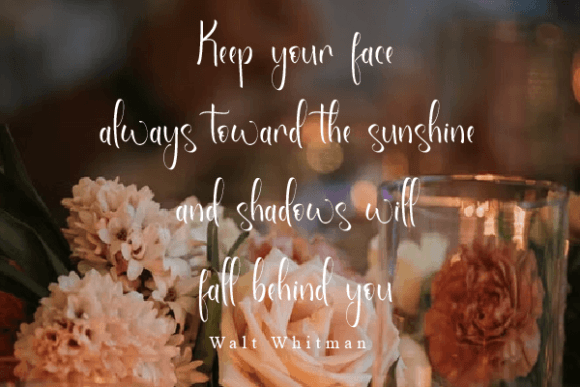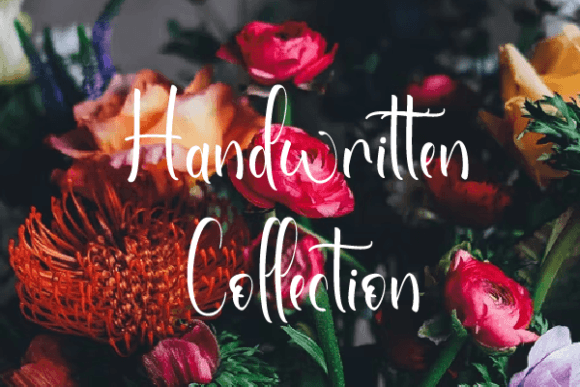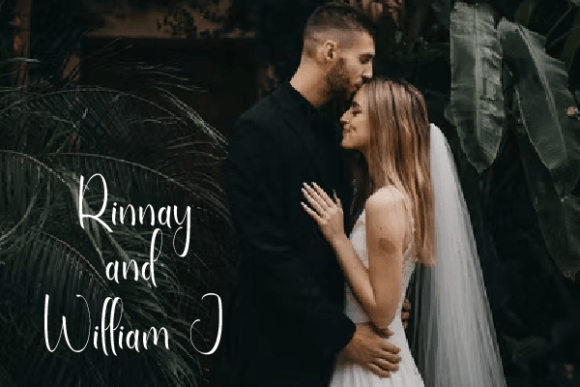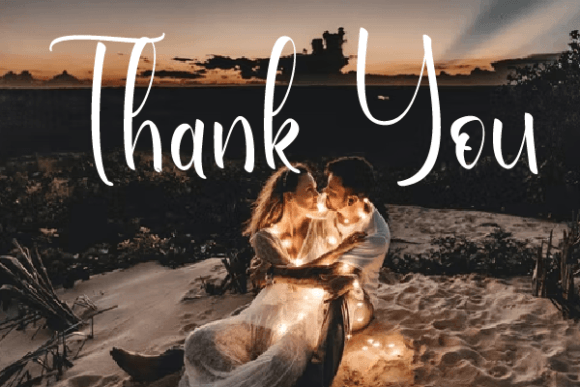
Introduction to Londyan Font
Have you ever been stuck in front of your computer, trying to decide on the perfect font for your next creative project, only to find yourself scrolling through endless options? We’ve all been there. But what if I told you there’s a font that’s about to change the game for designers like you? Say hello to the Londyan Font, the latest style letters that are perfect for anything from wall displays to wedding invitations.
This free download is a design resource that’s not only high quality but also incredibly versatile. With its beautiful, handwritten style, the Londyan Font is a must-have for any creative project. Whether you’re working on a product design, a social media post, or even a photography project, this font is sure to bring a personal touch to your work. And the best part? It’s available with a transparent background, making it easy to layer and manipulate in your design software.
Key Features of Londyan Font
- High-quality design resource ideal for creative projects, offering a unique and stylish aesthetic.
- Comes with a transparent background, allowing for seamless integration into various design environments.
- Designed with a high resolution (300 DPI), ensuring crisp and clear typography in various print and digital applications.
- Features a clean and modern design, perfect for use in logos, branding, and other visual identity projects.
Honest Review: Londyan Font
I recently had the chance to dive into the Londyan Font and I must say, it’s been an interesting experience. As a designer, I’m always on the lookout for high-quality design resources that can elevate my creative projects.
Here’s what works well: ✨ The font’s modern and sleek aesthetic makes it perfect for trendy designs. It’s also incredibly versatile and can be used in a variety of contexts, from branding to web design. The transparent background is a nice touch, allowing for seamless integration with any design.
- Modern and sleek aesthetic
Overall, I’d say the Londyan Font is a solid addition to any designer’s toolkit. While it may not be perfect, its unique style and high-quality design make it a great choice for creative projects that need a modern twist.
Tips for Getting the Most Out of Londyan Font
Use the Londyan Font in combination with a transparent background to create a visually appealing design element. Experiment with different font sizes, colors, and styles to add depth and interest to your design. You can also use the Londyan Font in conjunction with other design resources to create a unique and creative project.
Common Use Cases for Londyan Font
The Londyan Font is ideal for use in creative projects, such as graphic design, digital art, and typography. It’s also a great choice for design resources, such as logos, icons, and infographics. With its high-quality design and free download option, the Londyan Font is a valuable addition to any designer’s toolkit.